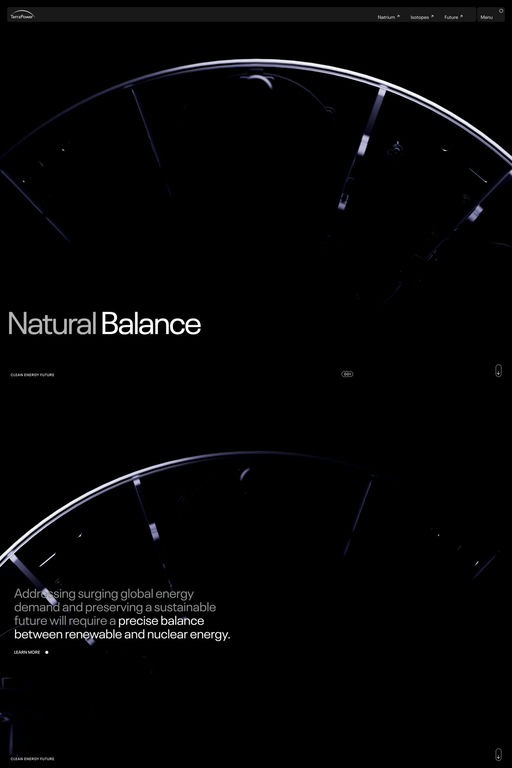
Neue Plak is a sans-serif typeface from Monotype.
German designer Paul Renner is best known for his Futura design, but Plak, his ‘other’ typeface, is long overdue a rediscovery.